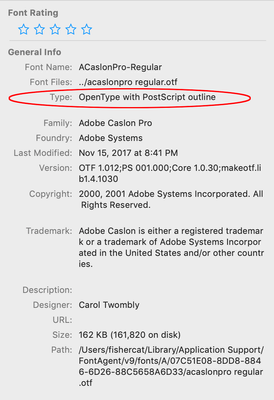
I am a book designer working on a 200-page project set in Adobe Caslon Pro with titles and pull-quotes set in Atsuka Montreal. Apparently these are Type 1 fonts which Adobe plans to stop supporting in January. This is catastrophic to my project as each line is individually kerned. Does Adobe understand how devastating this will be to book designers who have large projects in progress?
My first question to the forum is: WHY is Adobe no longer supporting an ADOBE PRO font?
My second question is: Will they replace these fonts with identical open source fonts?
My third question is: If Adobe does NOT replace these fonts, how do I find identical fonts to take their place?
Adobe Caslon Pro has always been OpenType. (The clue is the word "Pro" as OpenType made it possible to add many more glyphs than was possible in old Type 1 format). Yes, it is a Postcript-flavoured OpenType so it will still list as "OpenType Type 1" in your InDesign document, as Postscript outlines ARE Type 1. This is normal. Your document is fine.
The confusion comes here: what is ending is support for the old Type 1 font file format, which on Mac meant having separate Screen font suitcases and
if your current version of InDesign still supports the Type 1 version of Adobe Caslon Pro and you want to bundle your document with that exact same version, assumed InDesign 2022, do not use a newer version of InDesign with that project. E.g. InDesign 2023. Stick with InDesign 2022 and you should good to go.
NOTE: The OTF version of Adobe Caslon Pro was part of Adobe Font Folio and this OTF version was provided by Adobe for the last 18 to 20 years now. Unfortunately Adobe recently discontinued Adobe Font Folio.
Apparently these are Type 1 fonts which Adobe plans to stop supporting in January.
Hi @Tom2604280896iw , AdobeCaslonPro is not a Type 1 font—the FontAgent font manager app lists it as OpenType with Postscript outline, not Type 1. All of the OpenType fonts in my library are listed this way:
The InDesign default font MinionPro is the same:
FontAgent lists Type 1 fonts as Type 1. EurekaSans is an example of a Type 1 font that future versions of InDesign will no longer support.
Adobe Caslon Pro has always been OpenType. (The clue is the word "Pro" as OpenType made it possible to add many more glyphs than was possible in old Type 1 format). Yes, it is a Postcript-flavoured OpenType so it will still list as "OpenType Type 1" in your InDesign document, as Postscript outlines ARE Type 1. This is normal. Your document is fine.
The confusion comes here: what is ending is support for the old Type 1 font file format, which on Mac meant having separate Screen font suitcases and Outline font files, and on PC, seperate .pfm and .pfb files. This was confusing and not cross-platform, and only had room for a limited glyph set, so OpenType has combined them into a single file, with the ability to have many more glyphs.
As far as the other font you mention, it may be a matter of finding an updated OTF or TrueType version. You could also contact the font vendor you bought it from, but based on a search, it's a cheap font so buying it again is not going to cost you more than a couple of beers. OR, you can invest in a font conversion program (e.g. TransType) but that would cost you many times more than simply buying that font again.
Hi Brad and Rob,
looked up an old Adobe Font Folio from 2004, I think.
Adobe Caslon Pro is there as an OpenType font.
There is no Type 1 font listed for Adobe Caslon. And there never was perhaps.
( Sorry, I did not realize this. )
All in all Tom Joyce should be good to go with his Adobe Caslon Pro font files installed.
( Adobe Community Professional )
Adobe Caslon (and its extension Adobe Caslon Expert) did indeed exist in Type 1 (I have it in my archives), just not as the Pro version, which was OTF since 2000.
The one caveat I have for you in general is that some of the font vendors fiddled and finessed some font designs when they created new OTF Pro versions. In these cases, there will be some reflow when replacing old Type 1 with OTF Type 1, but this doesn't apply in your case, since you've been otf with Caslon Pro from the get go.
I recently asked MyFonts.com to clarify the nomenclature of OpenType fonts, and this was their useful reply, which I thought Forum members would be interested in seeing:
As everybody else has said the fonts that you are using are Open Type Fonts. I am wondering why you thought that the fonts were Postscript Type 1. The warnings that have been popping up for the last couple of years as to the discontinuation of the old fonts can actually pop up if perhaps there was at some time a Type 1 font used in the document which may have left either a blank space or unused paragraph return that is still reading as the old font. You can check this by going into Find/Replace Font under the Font menu and see if there is a listing for any fonts other than the ones you actually want in the file. If there are then globally change those to the Open type versions.